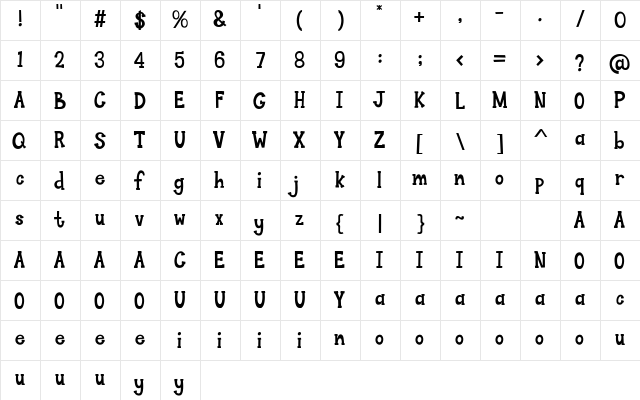
Funny Sports Regular
Design Context for Funny Sports Typeface
Funny Sports brings high-energy athletic personality to the page — its confident, muscular forms are built for impact.
A natural choice for gym brands, fantasy sports, jersey lettering, and action-driven headlines.
Pro Tip: Use Funny Sports in all-caps headlines where its athletic energy can fully express itself. Pair with a solid, simple sans for supporting text.